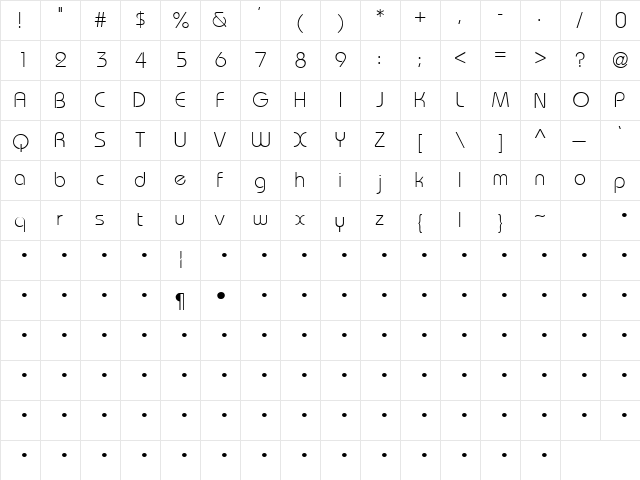
QTDoghausLight Regular
Design Context for QTDoghausLight Typeface
QTDoghausLight takes a measured approach to typography — its balanced proportions and neutral character make it a reliable workhorse for both digital and print work. Its slender proportions lend an understated elegance to any composition.